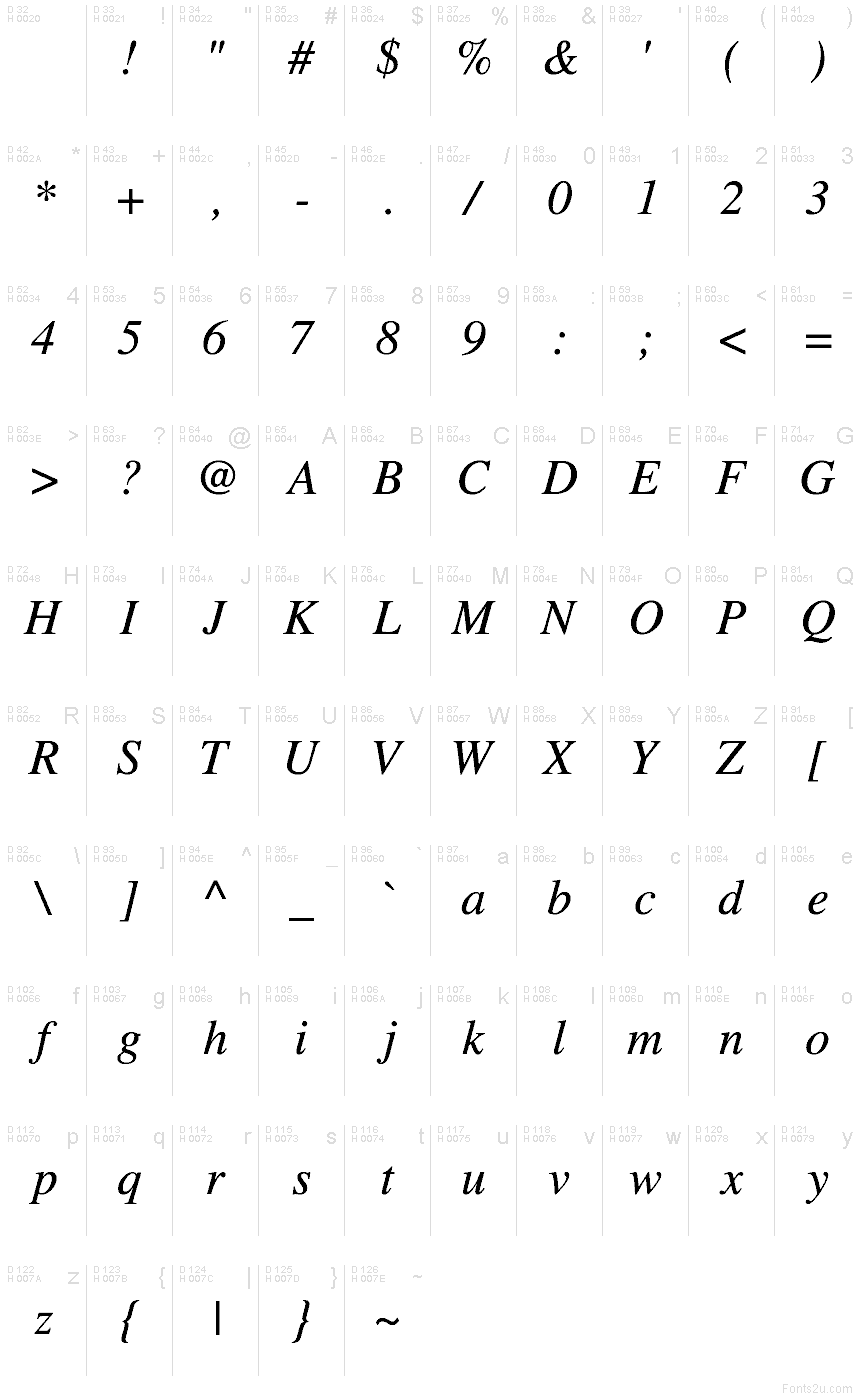
Tooele Italic
Tooele Italic font by STI Pub Companies is a free serif font with an elegant style. Its italicized nature incorporates smooth curves and soft edges that add a unique feel to classic text. Letters feel sophisticated, modern yet classic, creating an appealing look that suits both formal and informal texts.
Arie de Ruiter, who in 1995 was Head of Information Technology Development at Elsevier Science, made a proposal to the STI Pub group, an informal group of publishers consisting of representatives from the American Chemical Society (ACS), American Institute of Physics (AIP), American Mathematical Society (AMS), American Physical Society (APS), Elsevier, and Institute of Electrical and Electronics Engineers (IEEE). De Ruiter encouraged the members to consider development of a series of Web fonts, which he proposed should be called the Scientific and Technical Information eXchange, or STIX, Fonts. All STI Pub member organizations enthusiastically endorsed this proposal, and the STI Pub group agreed to embark on what has become a twelve-year project. The goal of the project was to identify all alphabetic, symbolic, and other special characters used in any facet of scientific publishing and to create a set of Unicode-based fonts that would be distributed free to every scientist, student, and other interested party worldwide. The fonts would be consistent with the emerging Unicode standard, and would permit universal representation of every character. With the release of the STIX fonts, de Ruiter's vision has been realized.